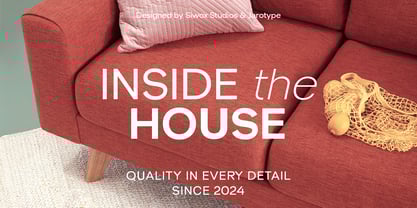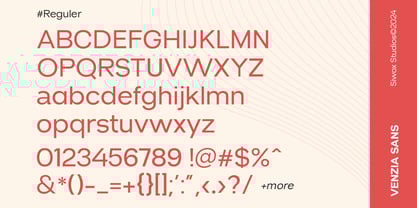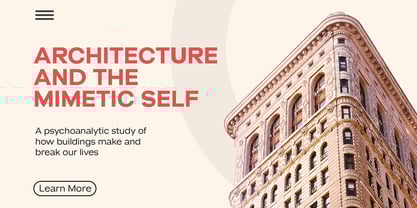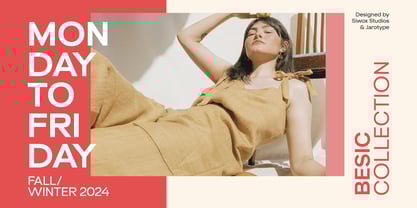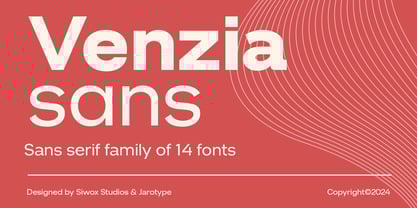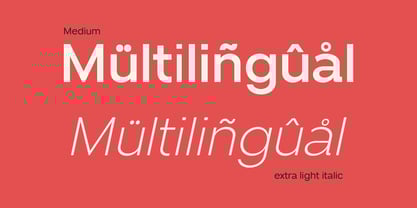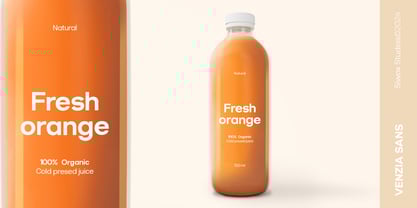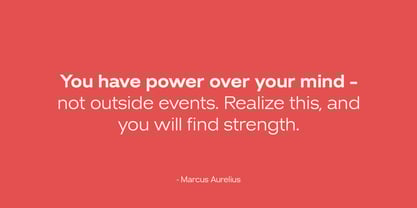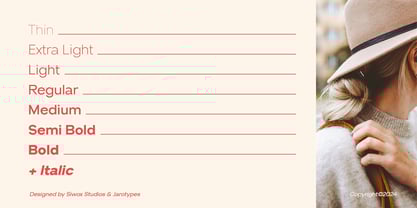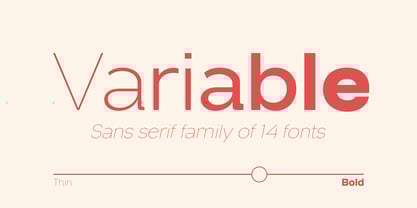
Venzia Sans
The Venzia Sans Font Family was designed by Rizaldi Wandani and published by Siwox Studios. Venzia Sans contains 15 styles and family package options. More about this family
Venzia Sans is a new classic casual sans serif font family of 14 font Variable; 7 Weights dan 7 ublique. Venzia Sans will perfect for many project: fashion, magazines, logo, branding, photography, invitations, wedding invitation, quotes, blog header, poster, advertisements, postcard, book, websites, etc.Typeface